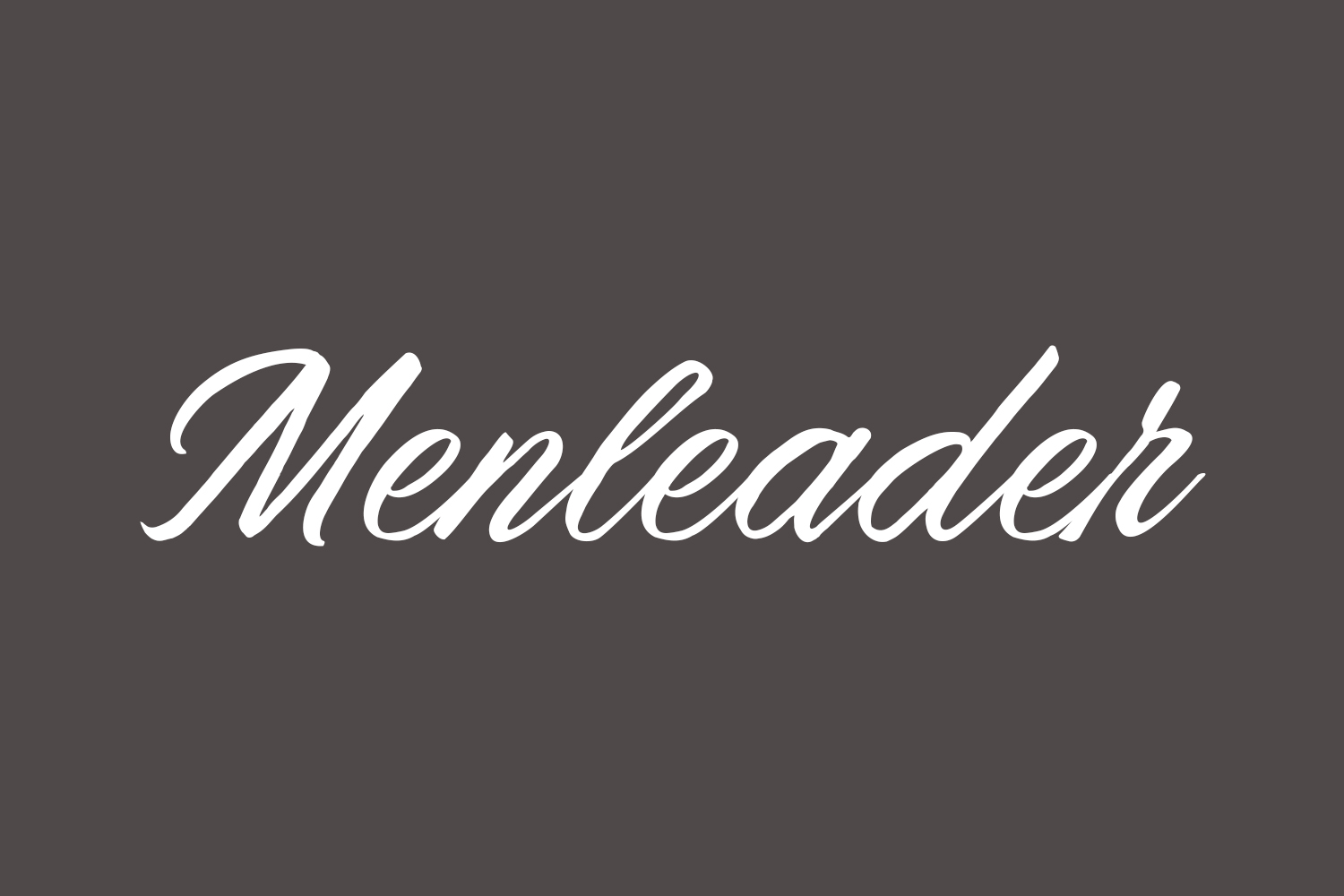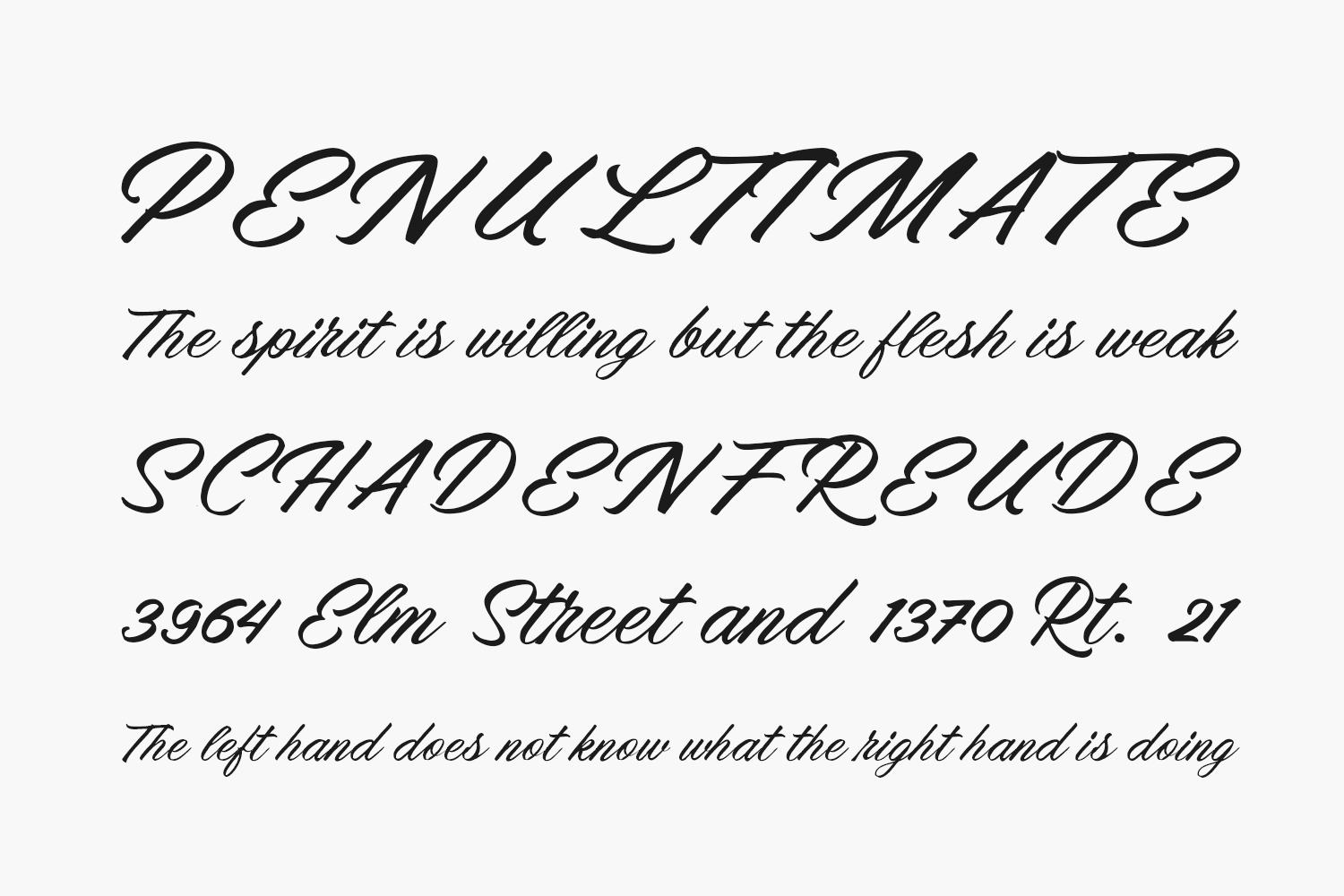
Menleader Free Font is a beautiful script font. Fall in love with its completely different and timeless style and use it to create spectacular designs. Menleader Free Font was designed by Letterhend Studio and is free for personal use only. Please purchase the full version for commercial use.